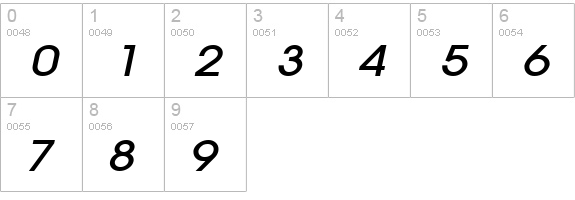
Atilla Wide BoldItalic Font Details
Atilla Wide BoldItalic is a distinctive, extended-width variant in the Atilla typeface family \xE2\x80\x94 well suited to design and typography projects.
Introducing Atilla Wide BoldItalic font, a striking and attention-grabbing typeface that exudes a sense of boldness and elegance. The bold strokes combined with the slanted italics create a unique and modern aesthetic, making it perfect for headlines, titles, and any design project that requires a touch of sophistication. This versatile font is designed to make a statement and stand out, while still maintaining a sense of professionalism and readability. The wide spacing adds a sense of openness and breathability to the text, making it easy on the eyes and engaging for the reader. Best of all, Atilla Wide BoldItalic font is available for free download at FontsMarket.com, allowing you to easily access and use this stunning typeface in your projects without any cost. Don't miss out on the opportunity to enhance your designs with the bold and stylish Atilla Wide BoldItalic font today!